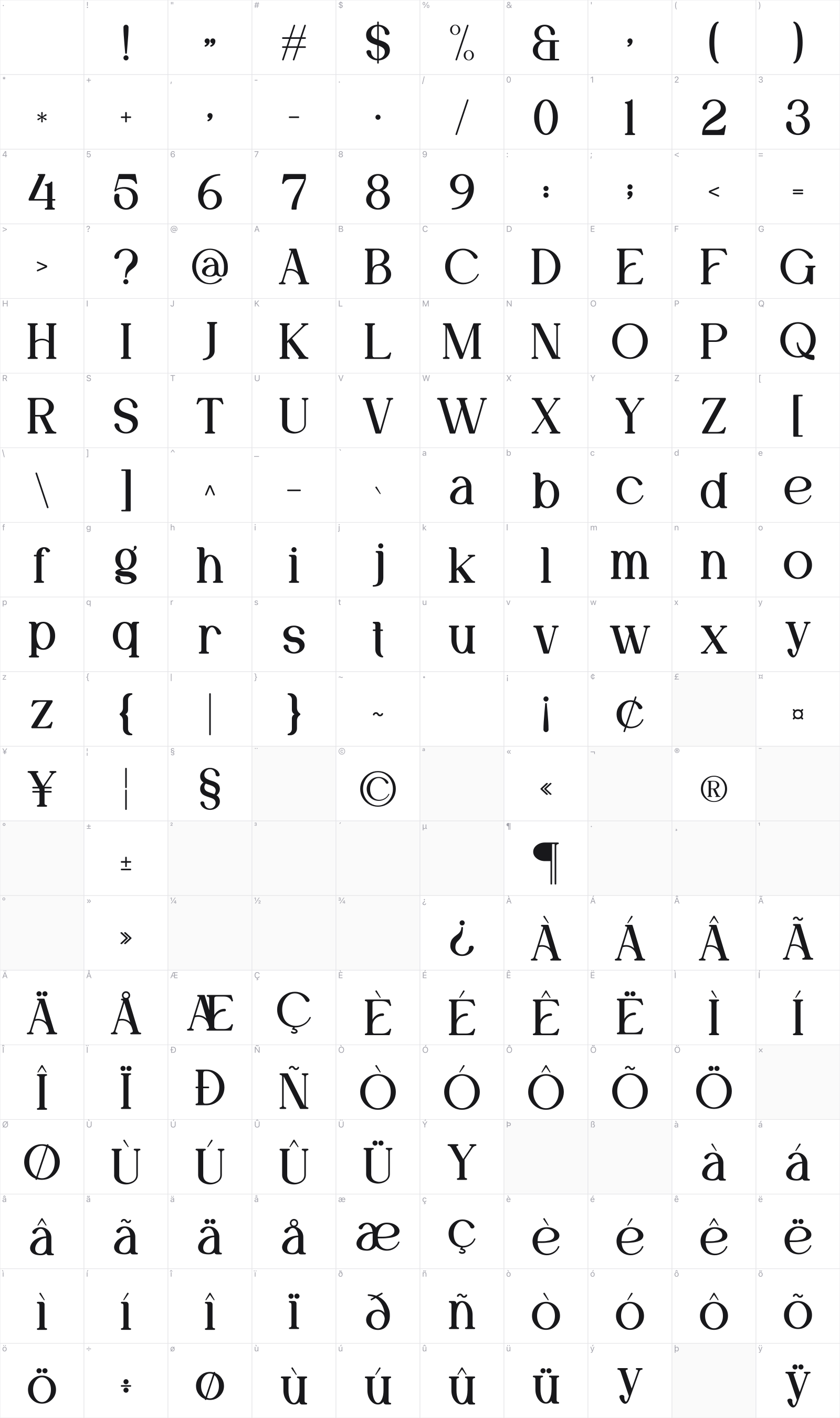
Moela
Moela is a contemporary high-contrast serif with clear Didone roots, built on the tension between thick stems and near-hairline serifs. The result feels refined without being stiff, landing somewhere between classical editorial and modern fashion branding. It carries visual weight at large sizes while retaining a light, graceful impression.